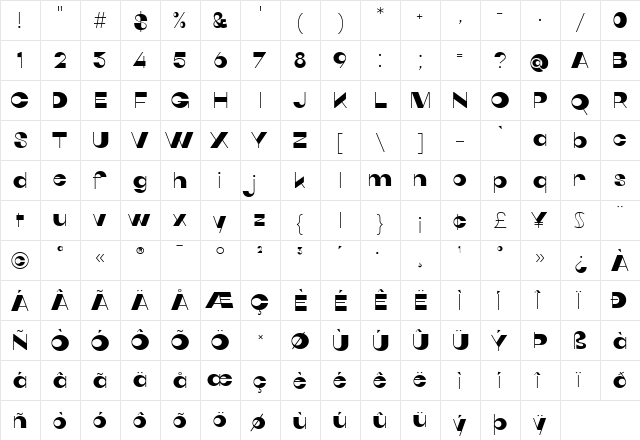
Quarantype Hopscotch Regular
| Foundry | Zetafonts |
| Designer | Cosimo Lorenzo Pancini |
Design Context for Quarantype Hopscotch Typeface
Quarantype Hopscotch is a composed and adaptable typeface that performs quietly and consistently across a wide range of design contexts.